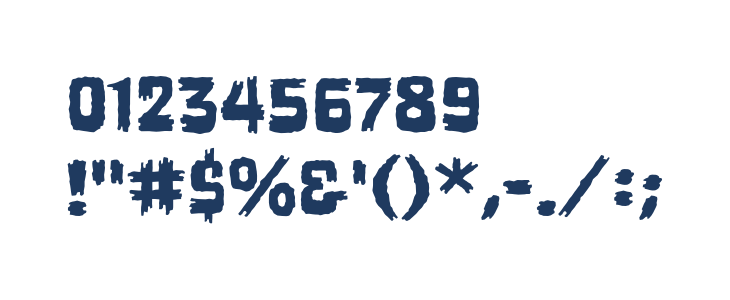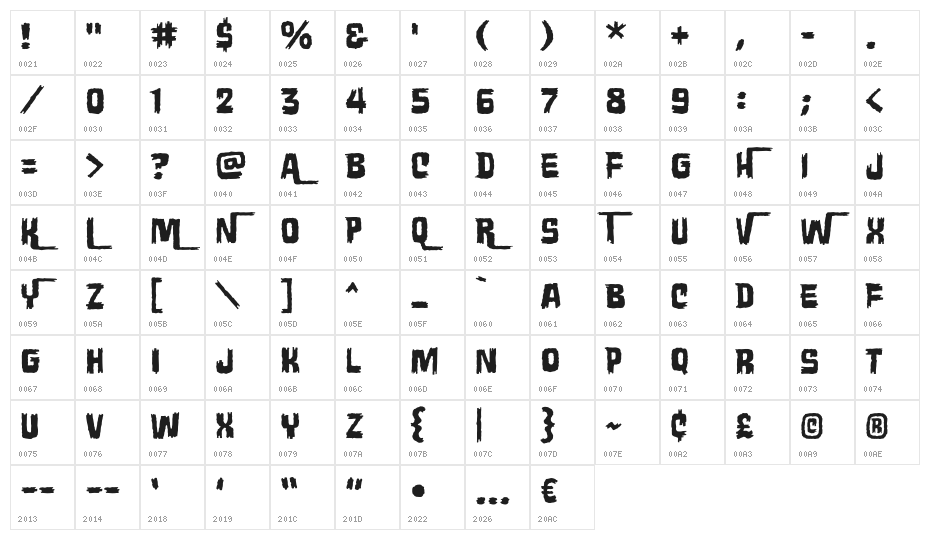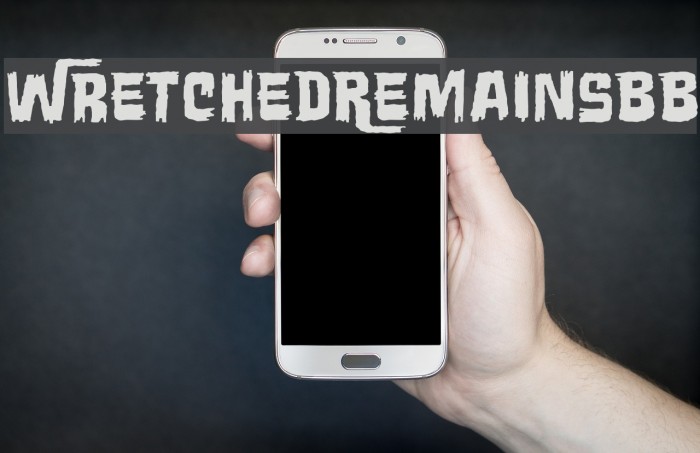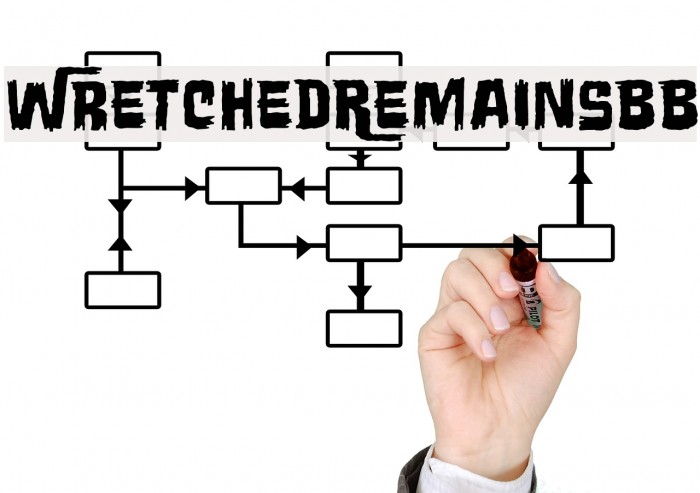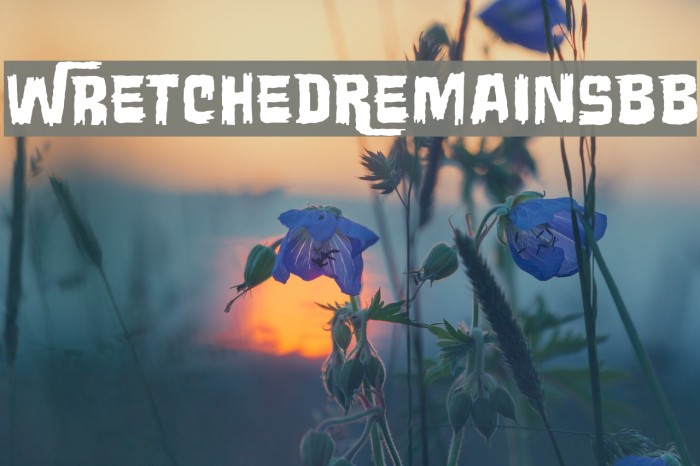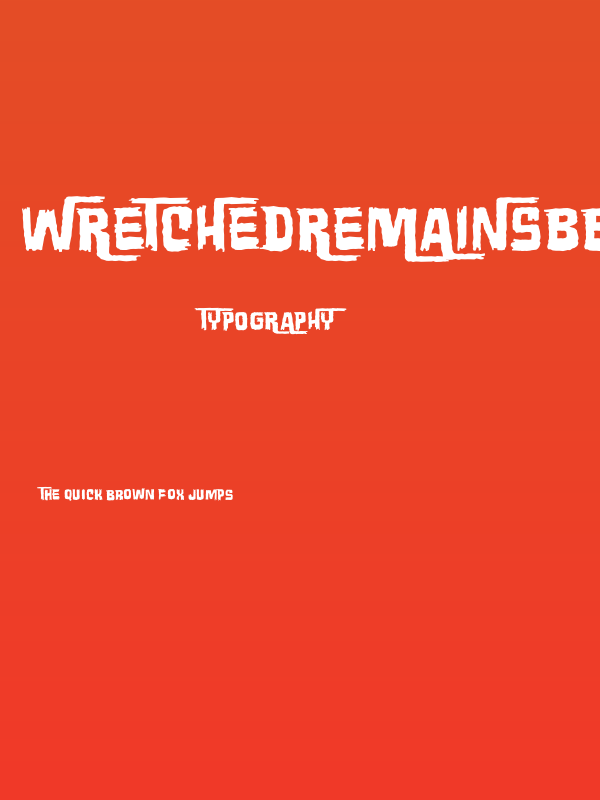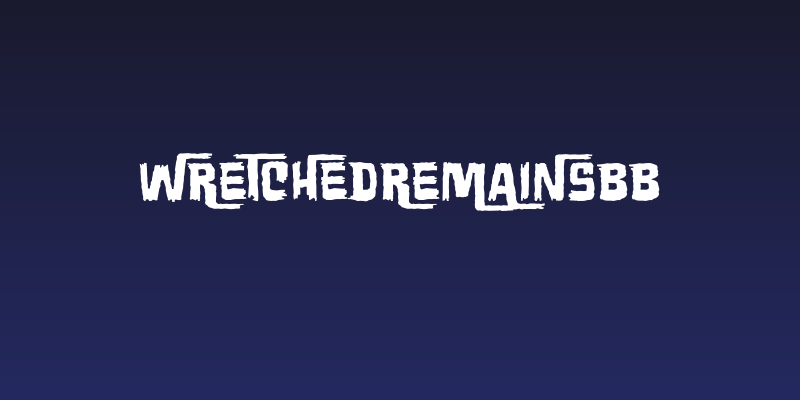
WretchedRemainsBB Font
WretchedRemainsBB Description
This font exudes a rugged, distressed aesthetic, characterized by its jagged edges and uneven strokes. The letters appear as if they have been roughly carved or eroded, giving them a raw and gritty appearance. The uppercase and lowercase letters maintain a consistent style, with bold, thick lines that suggest a sense of urgency and intensity. The numbers and special characters follow the same distressed theme, making the font cohesive and visually striking. This font is perfect for projects that require a bold statement or an edgy, rebellious look.
| Proposed Projects | Ideal for horror-themed posters, album covers, video game titles, and edgy branding. |